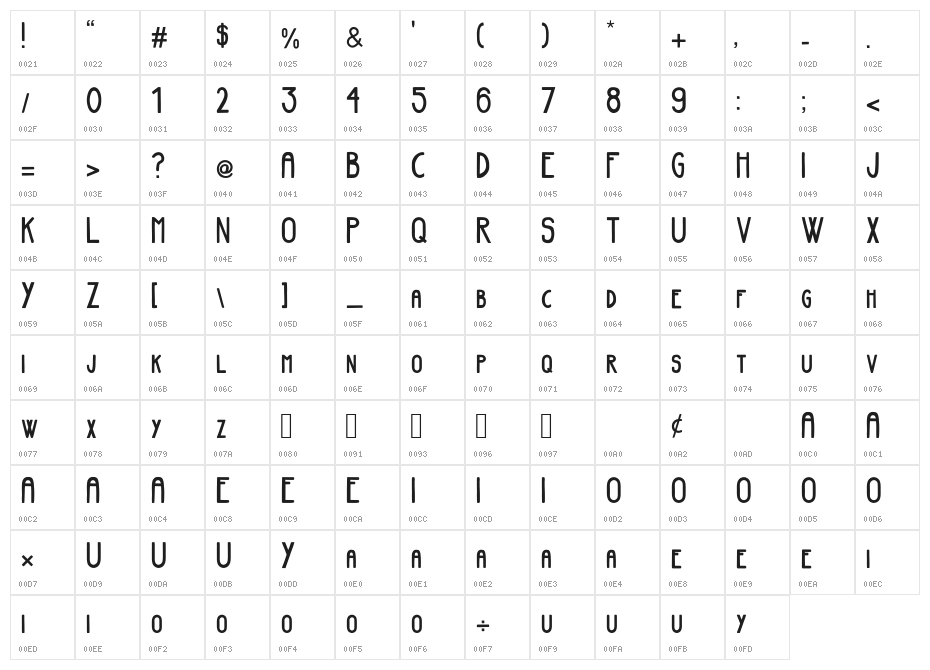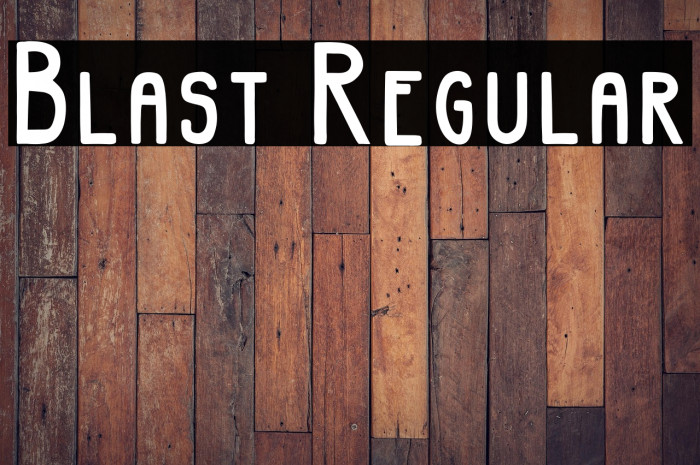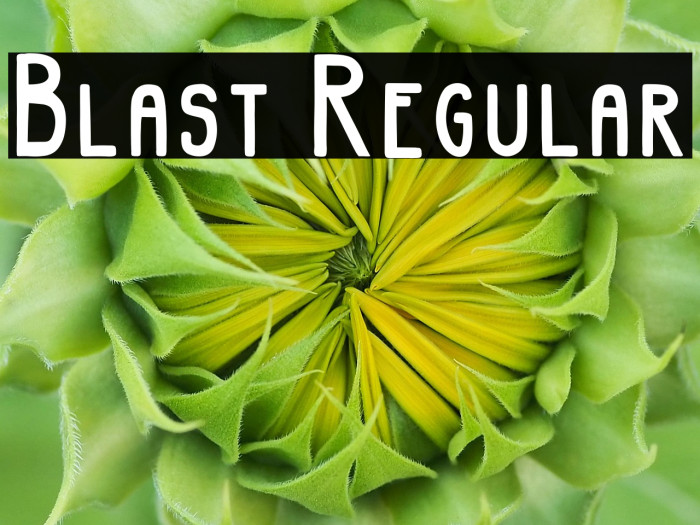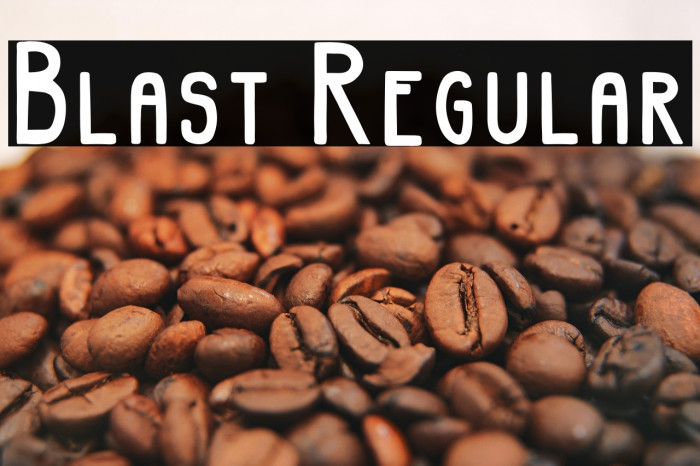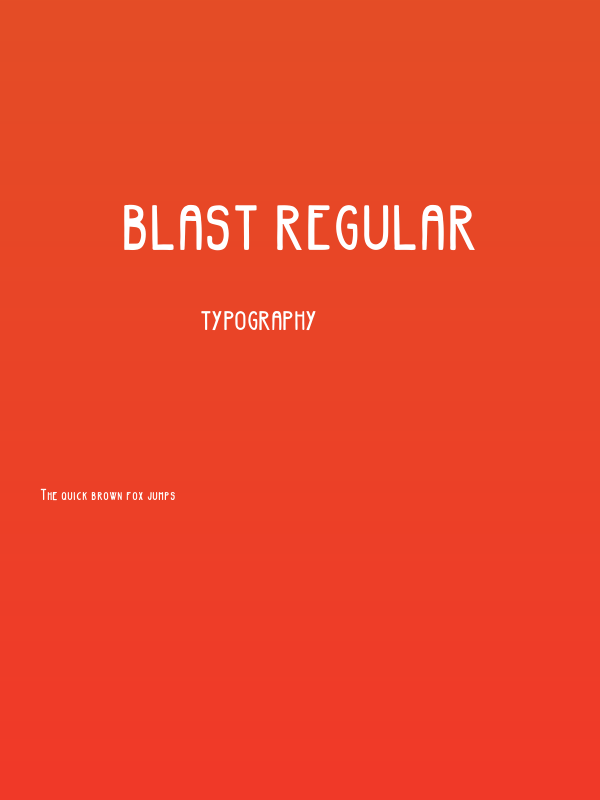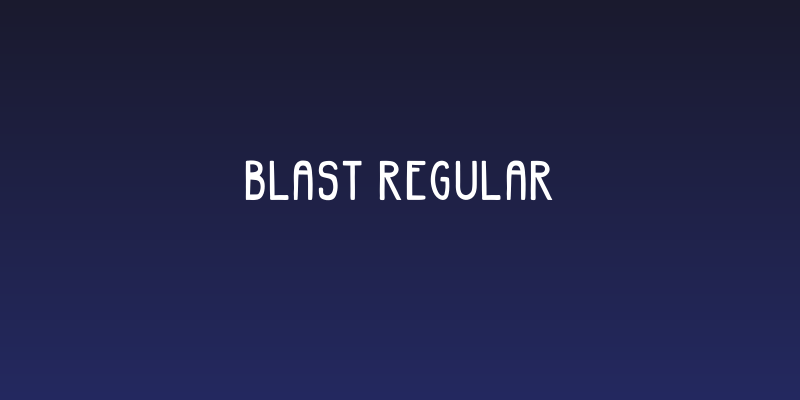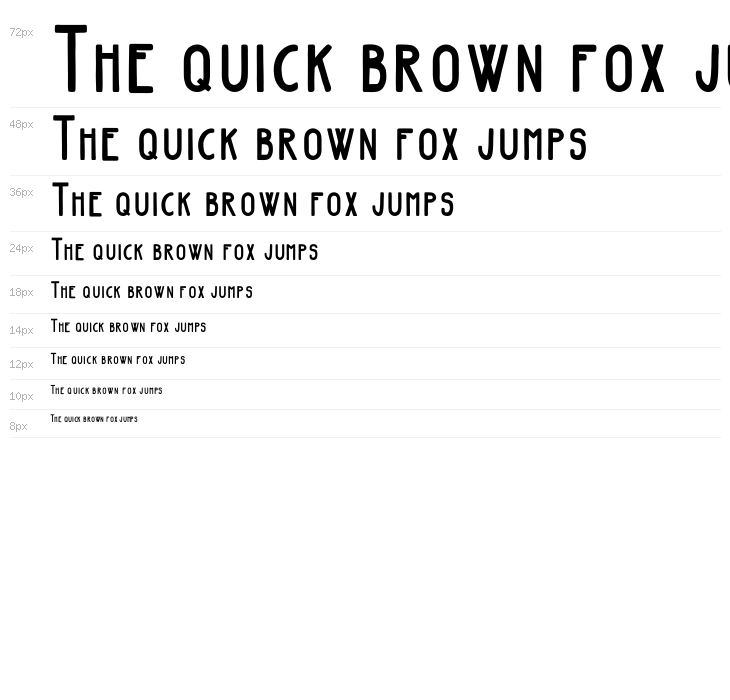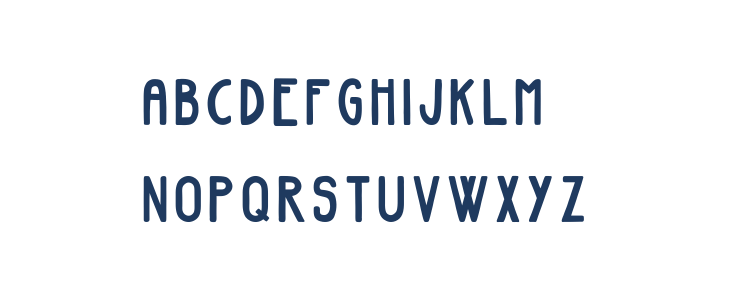
Blast Regular Font
Blast Regular Description
This font features a bold and playful design with rounded edges and a slightly condensed form. The characters are uniform in width, giving a cohesive and structured appearance. The uppercase letters are tall and narrow, while the lowercase letters maintain a consistent height, creating a harmonious balance. The numerals are clear and legible, with a distinctive style that matches the overall aesthetic. Special characters are well-integrated, maintaining the playful yet professional look. This font is versatile, suitable for both digital and print media, and can be used to add a touch of personality to any project.
| Overall Style | Playful, Modern |
| Proposed Projects | Ideal for branding, posters, children's books, and creative digital content. |